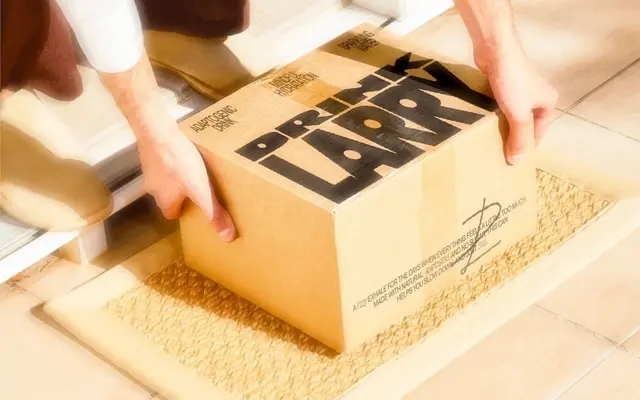
Neue Montreal
Pangram Foundry · Mat Desjardins · 2018
A contemporary grotesque by Mat Desjardins, first released in 2018 and developed continuously into a 36-style family covering Latin, Cyrillic, Greek and Arabic.
Designed by Mat Desjardins and inspired loosely by Montreal's modernist visual culture, the family spans Hairline to Black with matching italics across a variable weight axis. Version 3 added a dedicated Text subfamily with wider apertures and adjusted spacing for improved legibility at small sizes. Language support covers over 500 languages across Latin, Cyrillic, Greek, Arabic and Vietnamese scripts.
A contemporary grotesque sans-serif with roots in modernist typographic tradition, self-described as a grotesque and structured around clean, rational proportions typical of the genre.